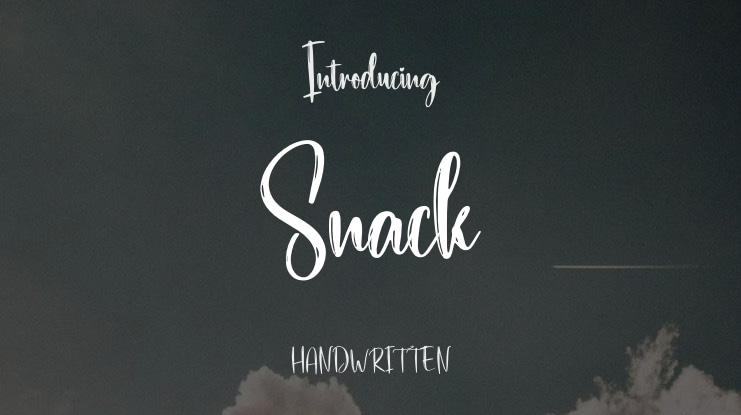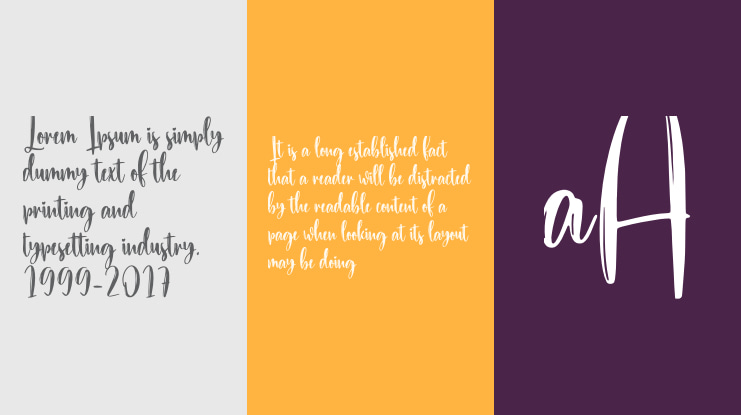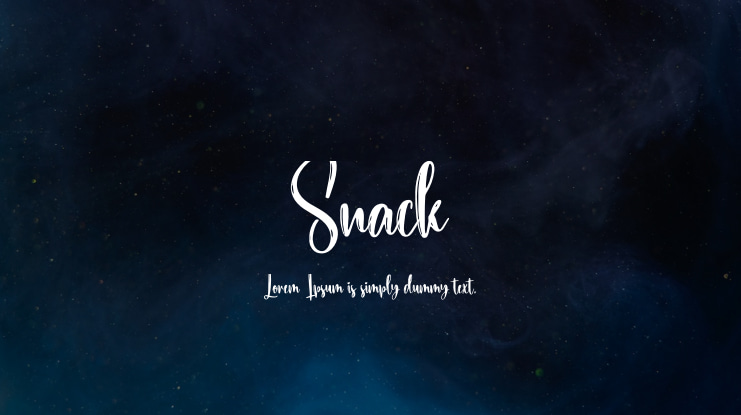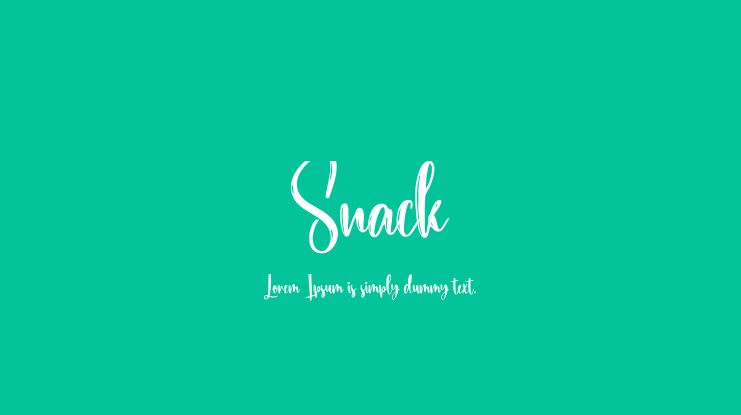
Discover unique and creative products tailored just for you that promise an extraordinary experience. Our latest stylish fonts are ideal for various uses such as wall displays, wedding invitations, social media logos, advertisements, product packaging, designs, labels, photography, watermarks, invitations, stationery, and any project that demands elegant handwriting.